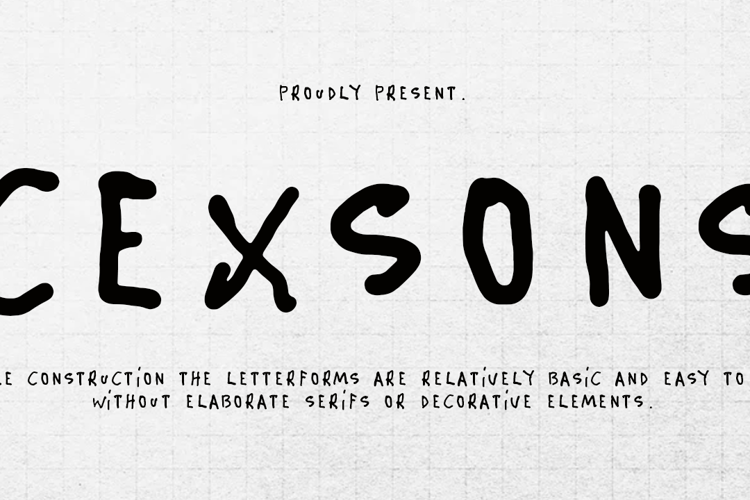
Cexsons Font
Informal and Playful: The letterforms have a relaxed and slightly irregular feel, suggesting they were drawn by hand rather than being precisely constructed.